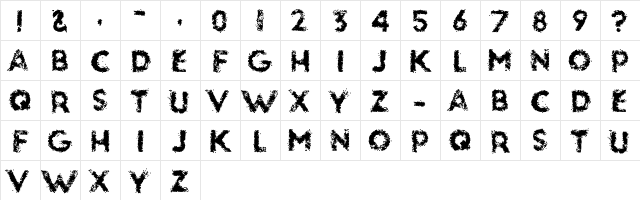
glassbeads Regular
Design Context for glassbeads Typeface
glassbeads is a composed and adaptable typeface that performs quietly and consistently across a wide range of design contexts.